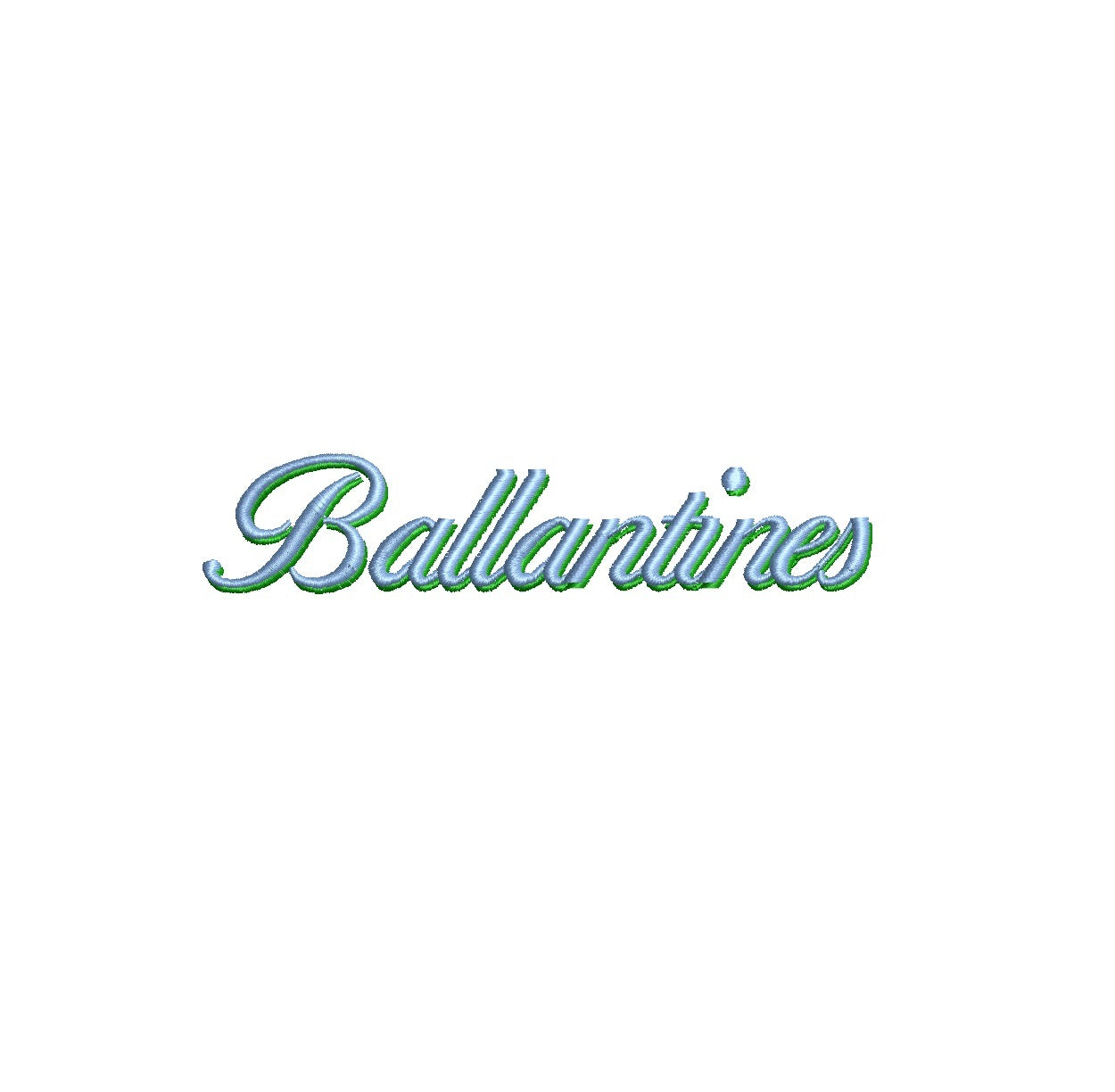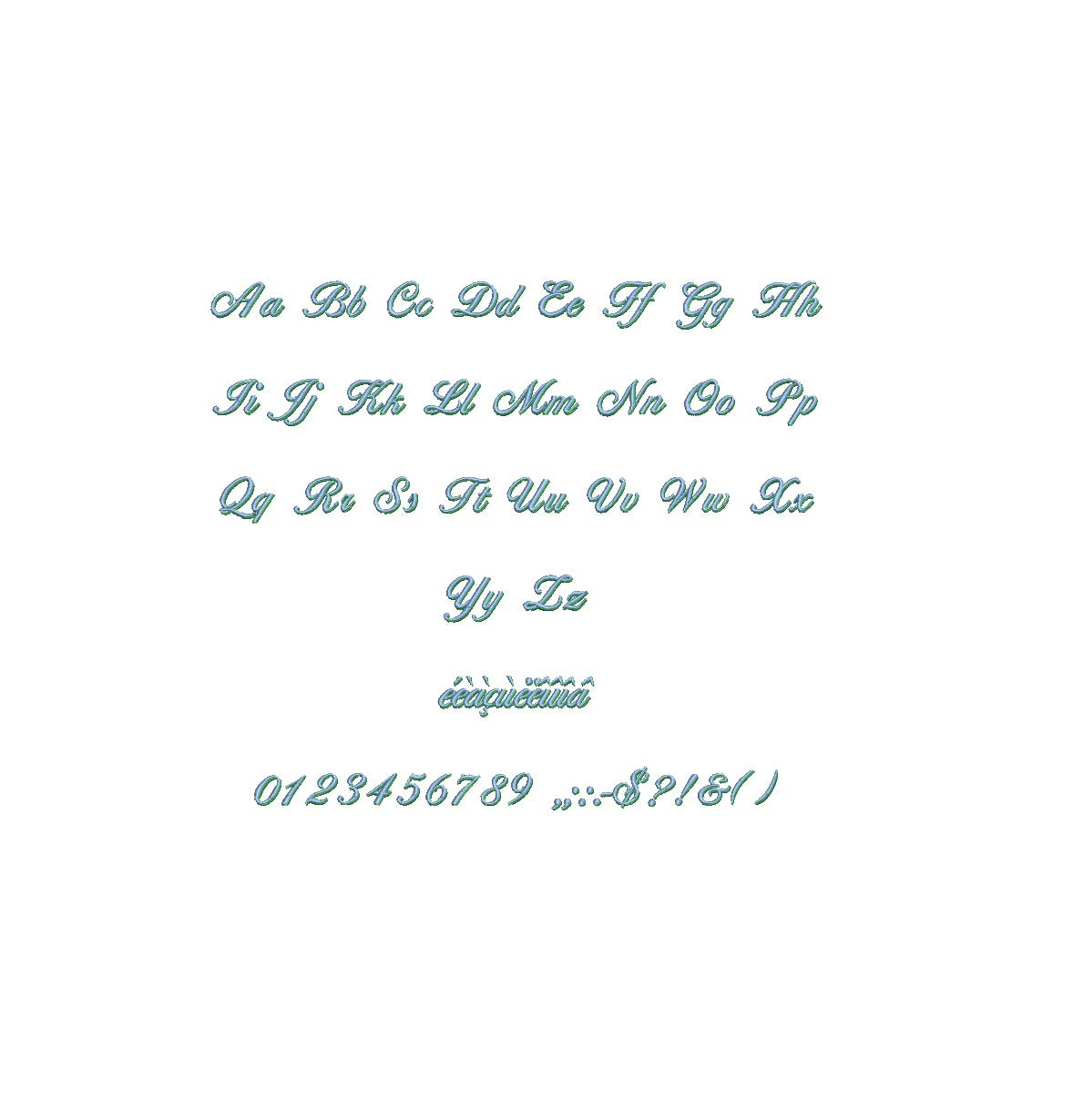
Ballantines Shadow ESA font
Elevate your designs with the exquisite Ballantines Shadow ESA font, now compatible with Wilcom Studio e4.5.6 and Hatch 3 versions and up. This font seamlessly combines classic sophistication and contemporary flair, adding a touch of elegance to your projects. Crafted with meticulous attention to detail, its shadows and lines create a captivating visual impact that ensures your designs stand out. Streamline your creative process and achieve flawless results by using this font with industry-leading software. Transform your projects with the compatibility of Ballantines Shadow ESA font. Upgrade your design game today and leave a lasting impression.